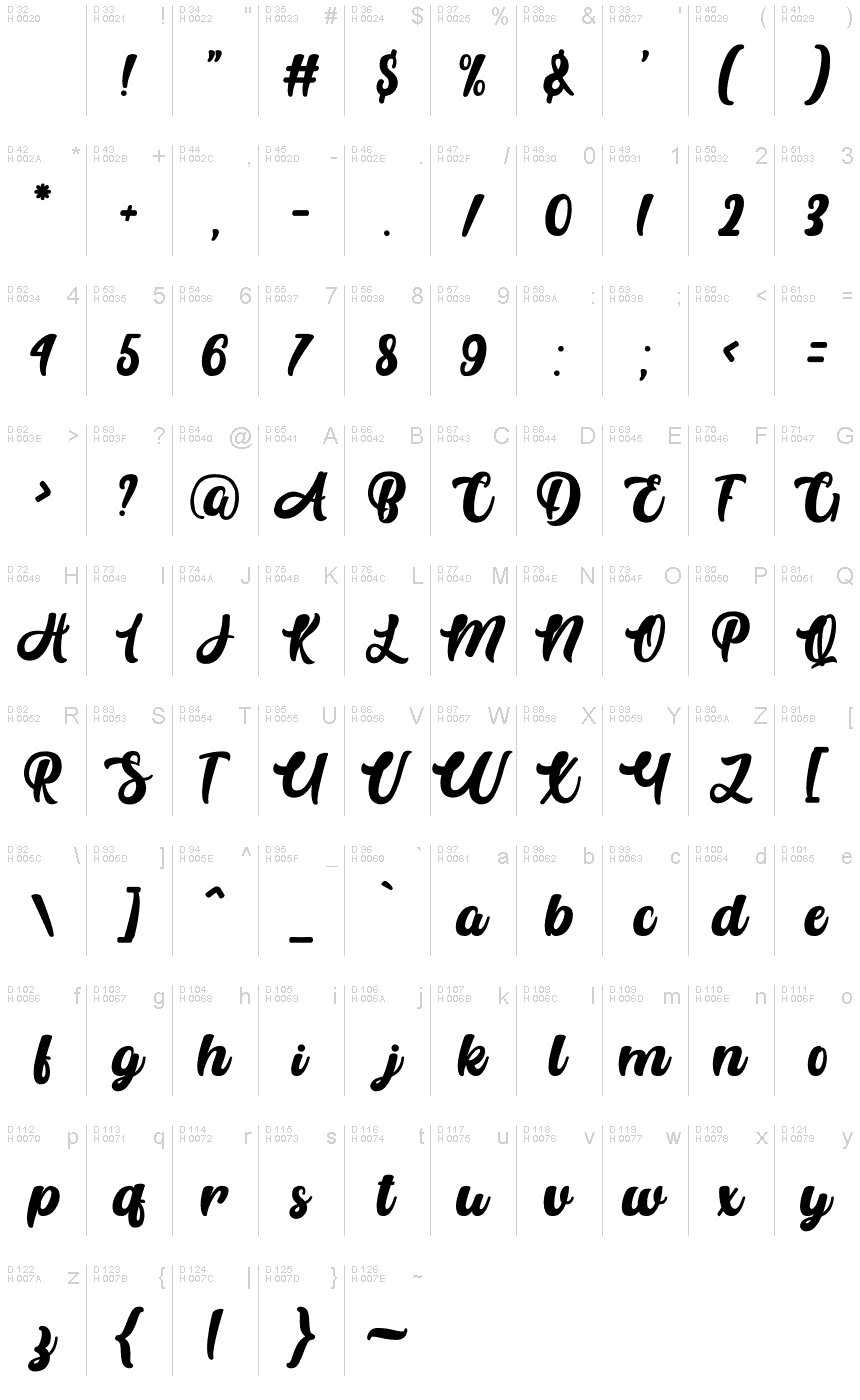
Anhattan
Anhattan, designed by StringLabs Creative Studio, is a captivating calligraphy font that effortlessly blends elegance with modernity. Its bold weight adds a touch of confidence and allure to any project it graces. Suitable for wedding invitations, luxury branding, and editorial designs seeking a refined aesthetic. Anhattan's stylish curves and flowing strokes bring sophistication to packaging design and social media graphics. Whether you're crafting an exquisite logo or designing an upscale website, this calligraphy font will elevate your work to new heights. Let Anhattan inspire your creativity and leave a lasting impression on your audience.